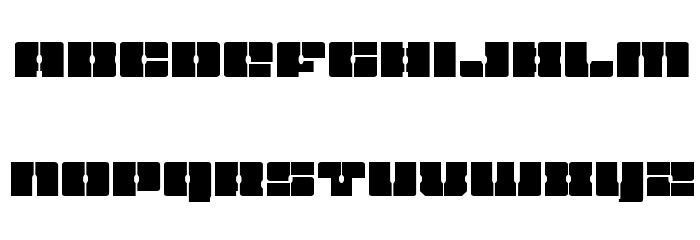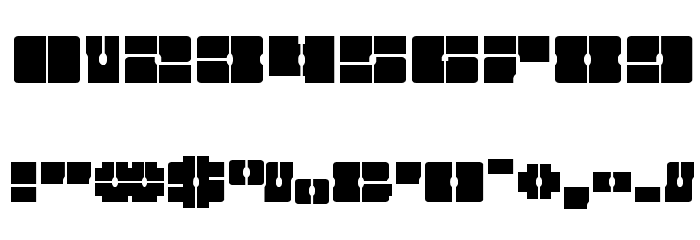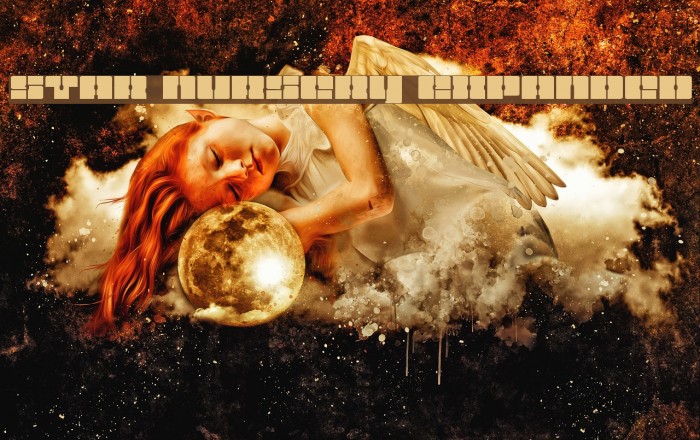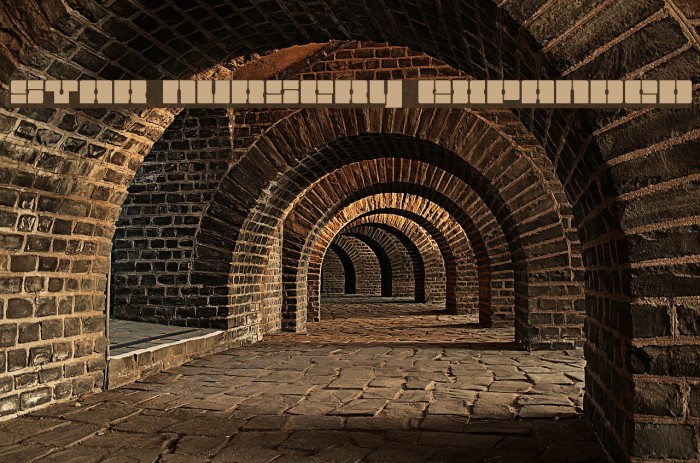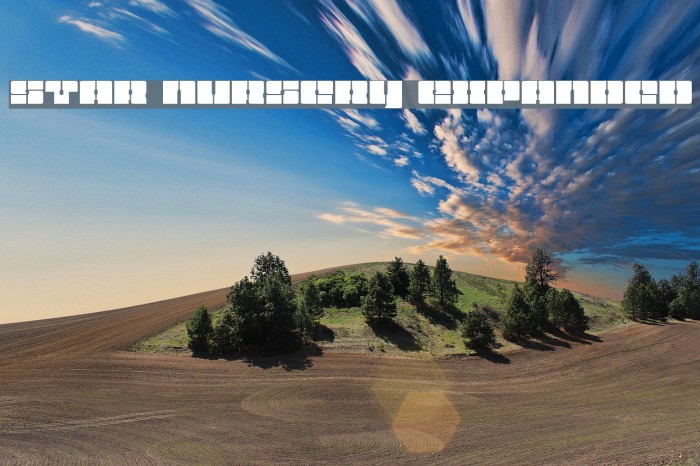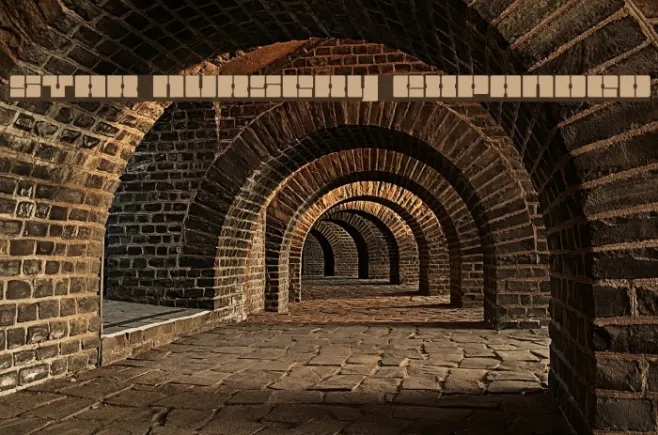
Star Nursery Expanded Font
This font features a bold and geometric design with a distinct futuristic appeal. Each character is constructed with solid, block-like shapes that are interconnected by small circular cutouts, giving it a unique and modern aesthetic. The uppercase and lowercase letters maintain a consistent width, contributing to a uniform appearance across the typeface. The numbers and special characters follow the same design principles, ensuring cohesiveness throughout. The font's style is highly decorative, making it suitable for attention-grabbing headlines or creative projects that require a strong visual impact.
A bold, geometric font with futuristic and decorative elements.
- Proposed Projects: Ideal for sci-fi themed posters, video game titles, branding for tech companies, or any project needing a modern and striking typeface.
- Overall Style: Futuristic, Decorative